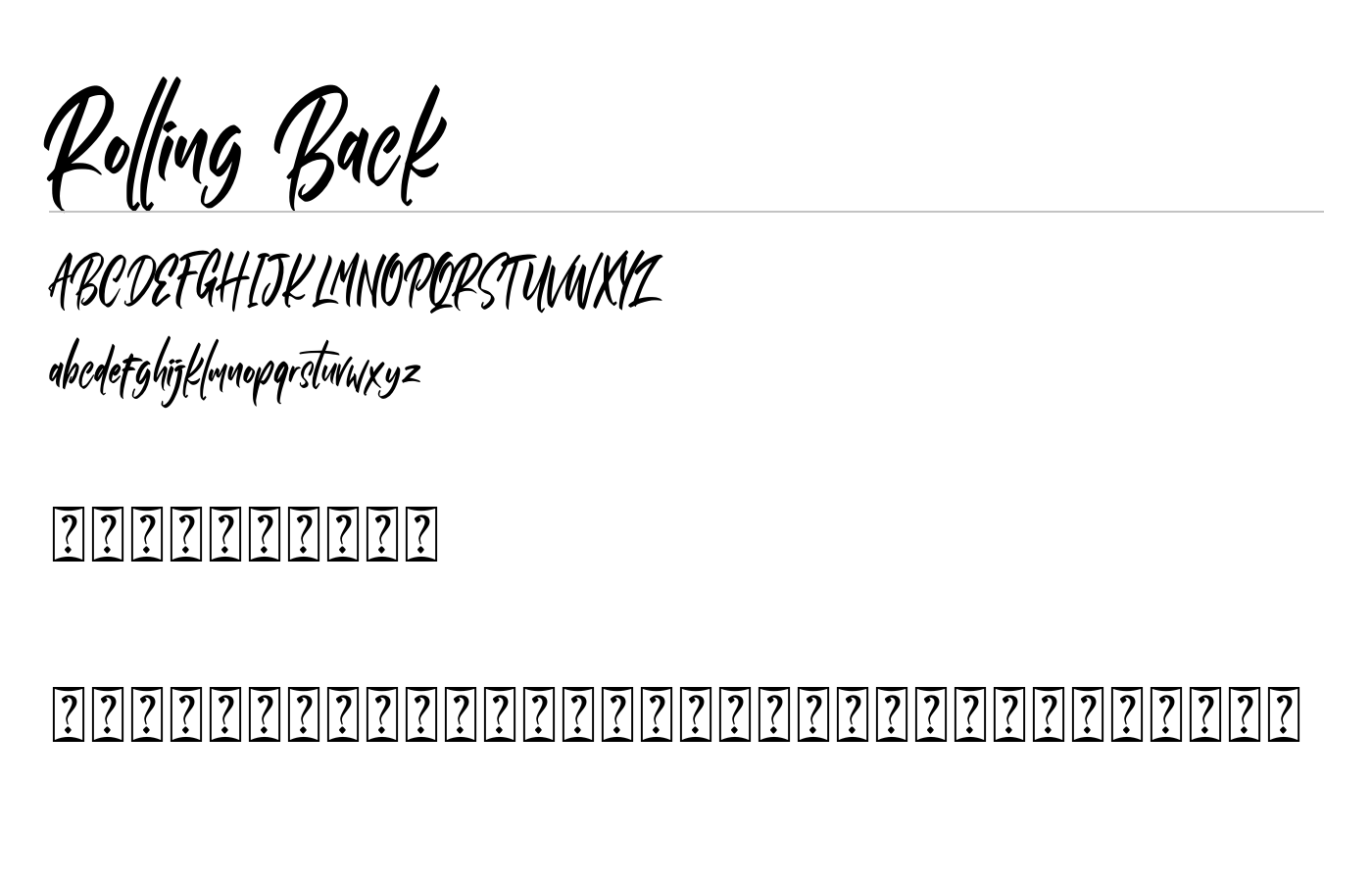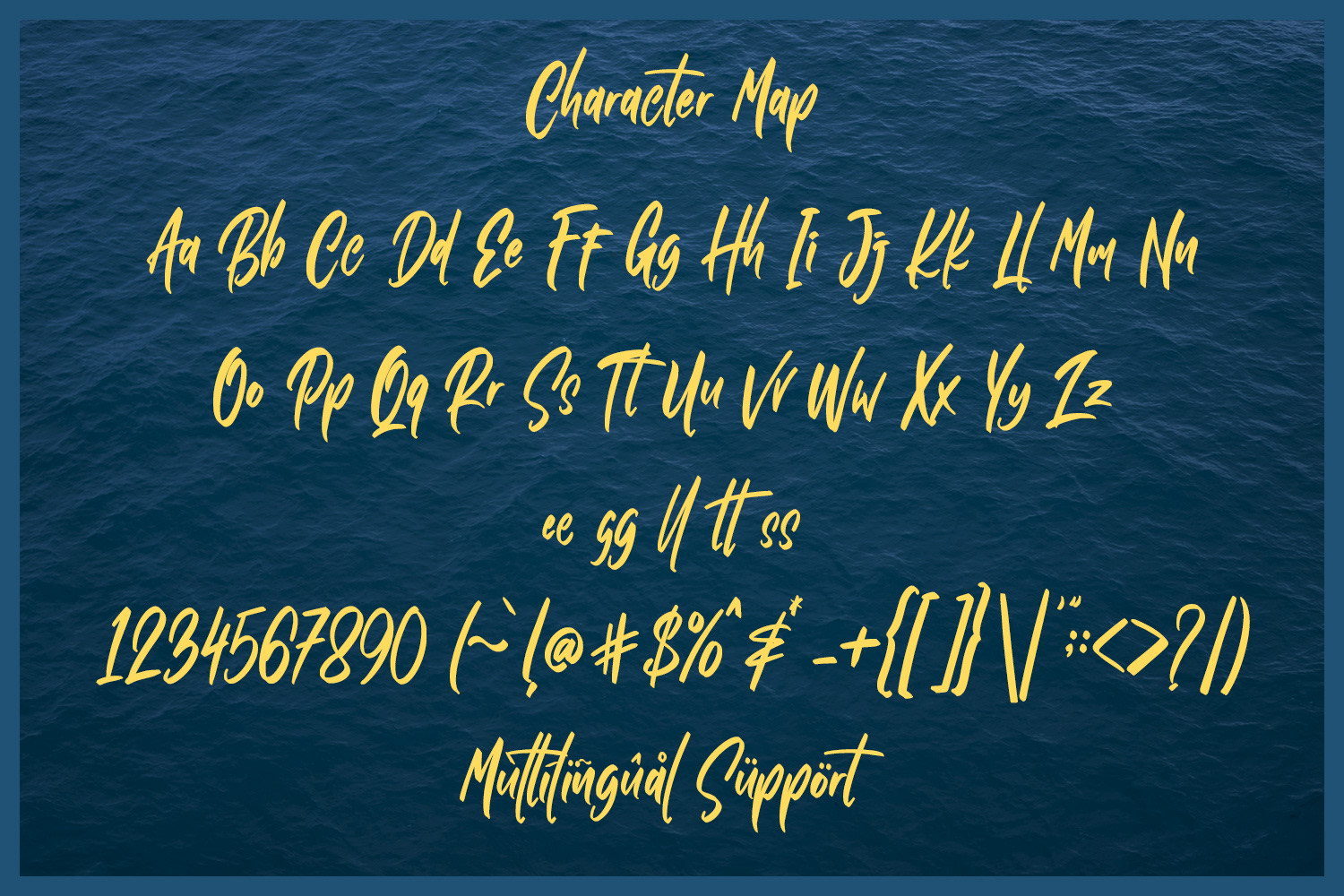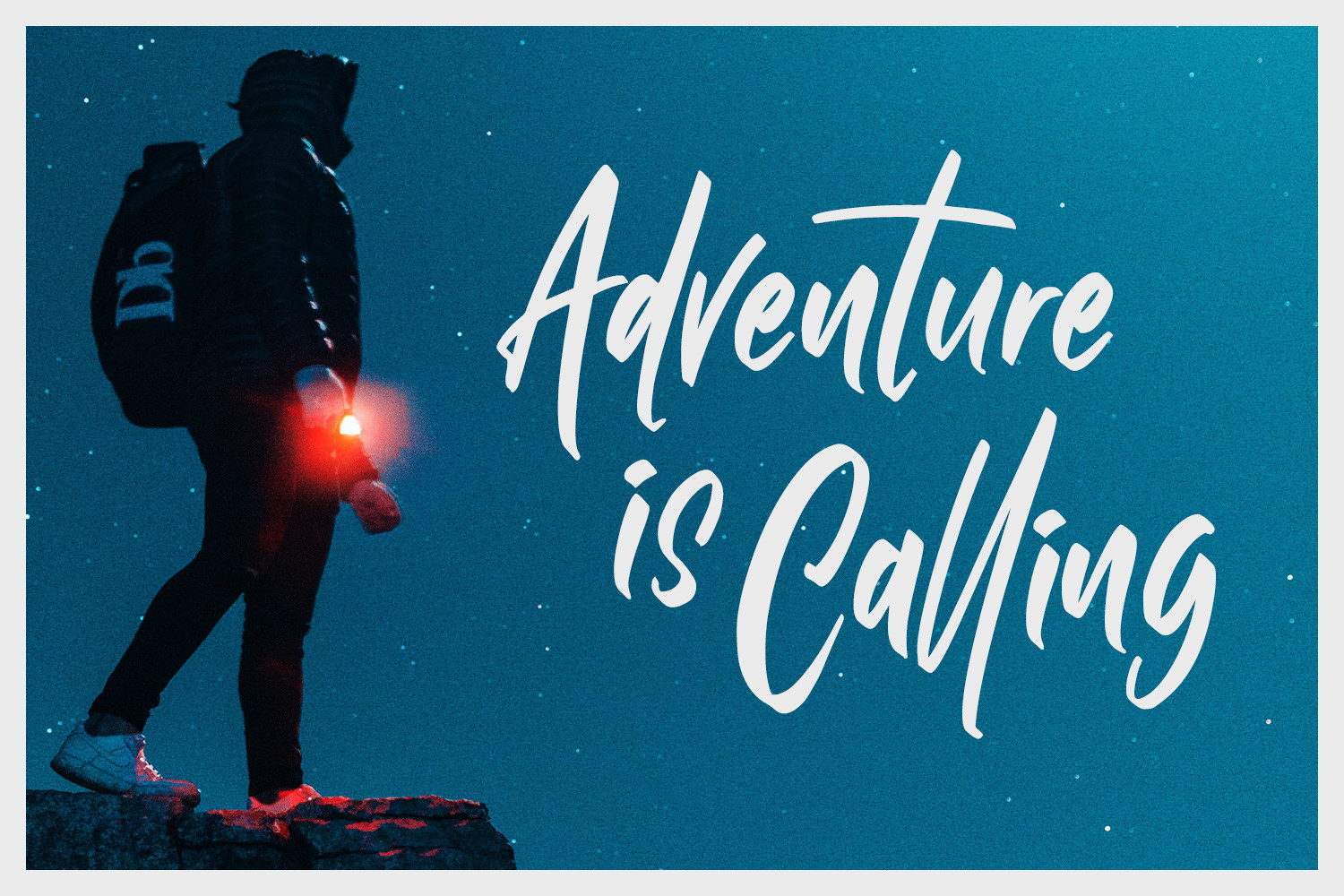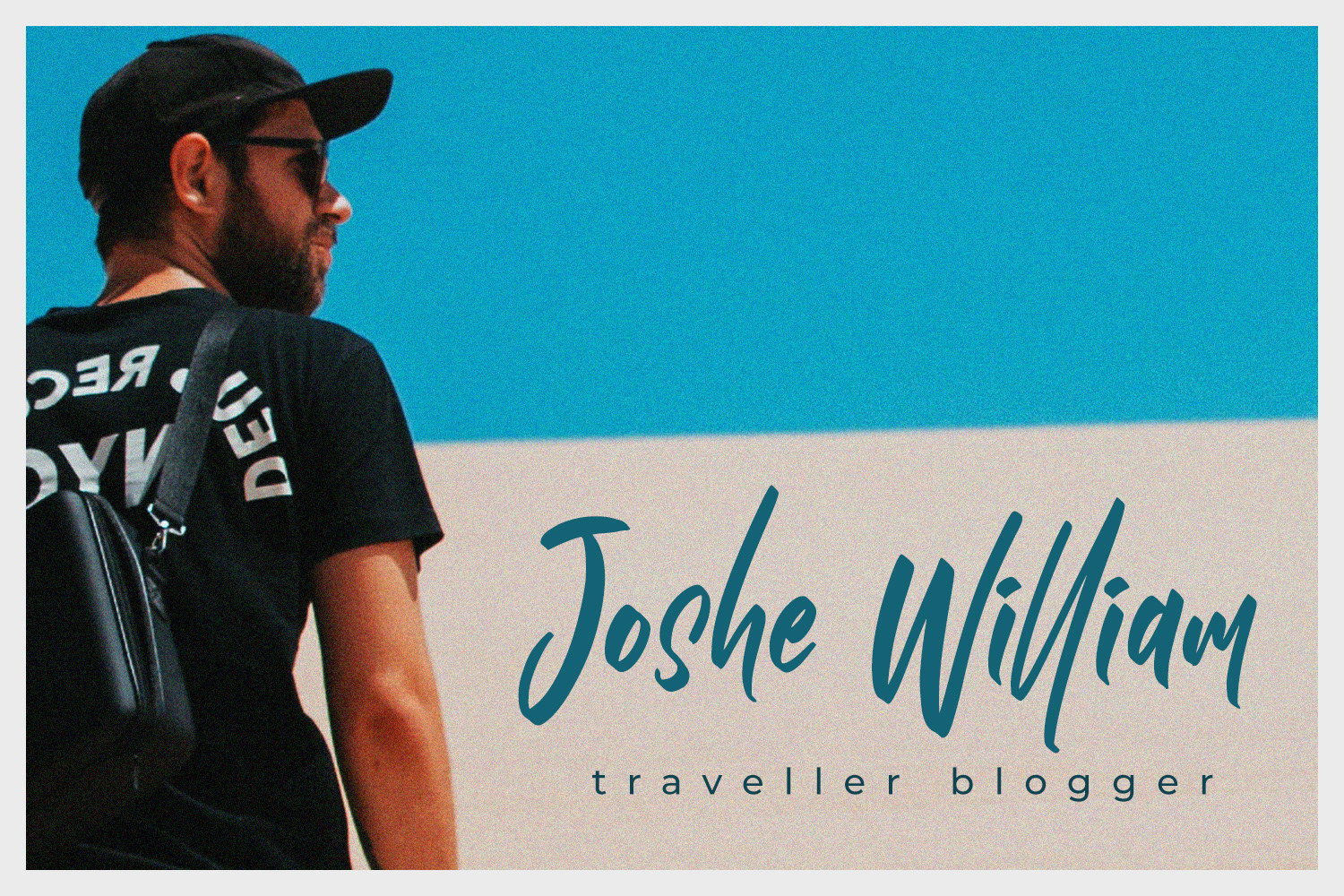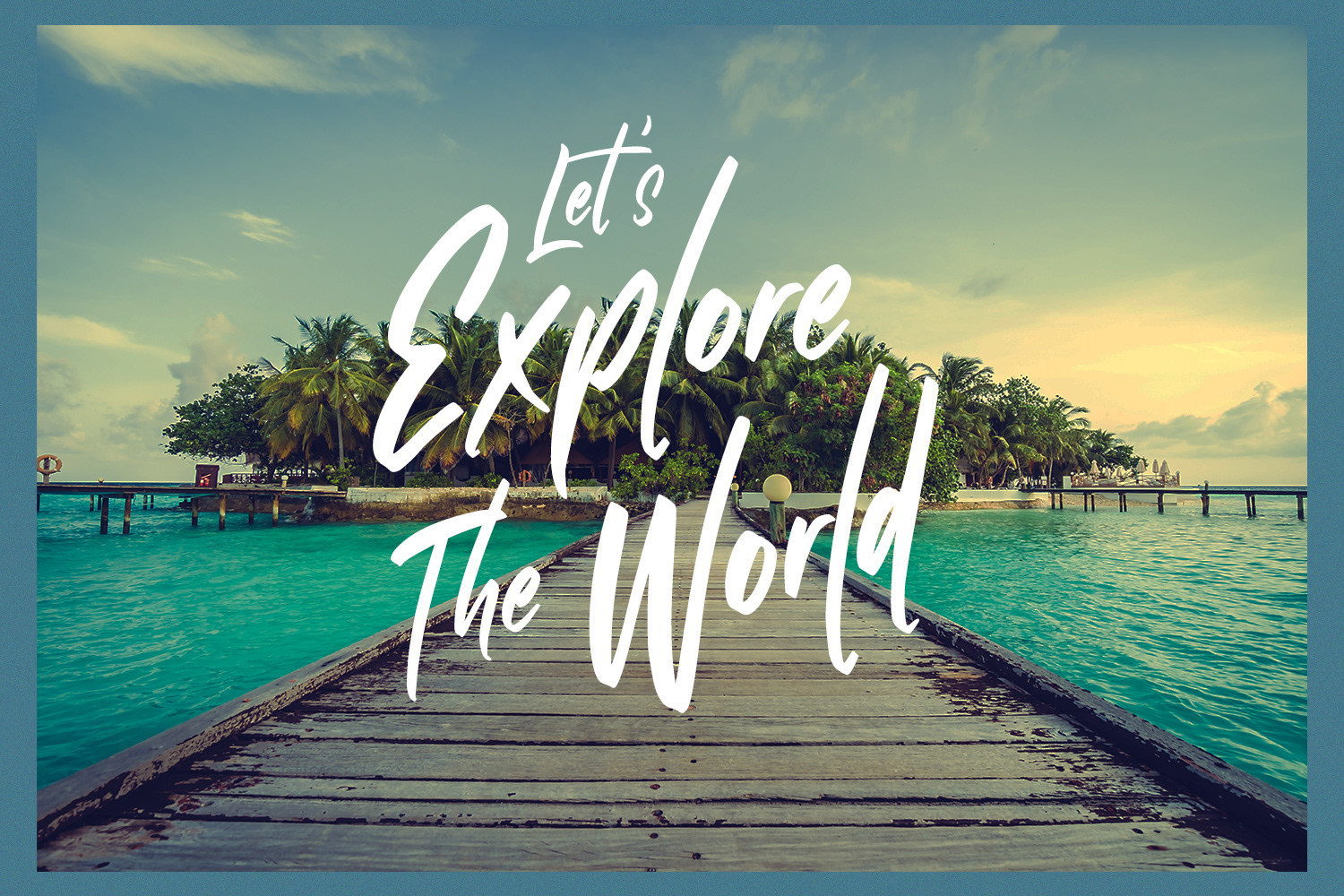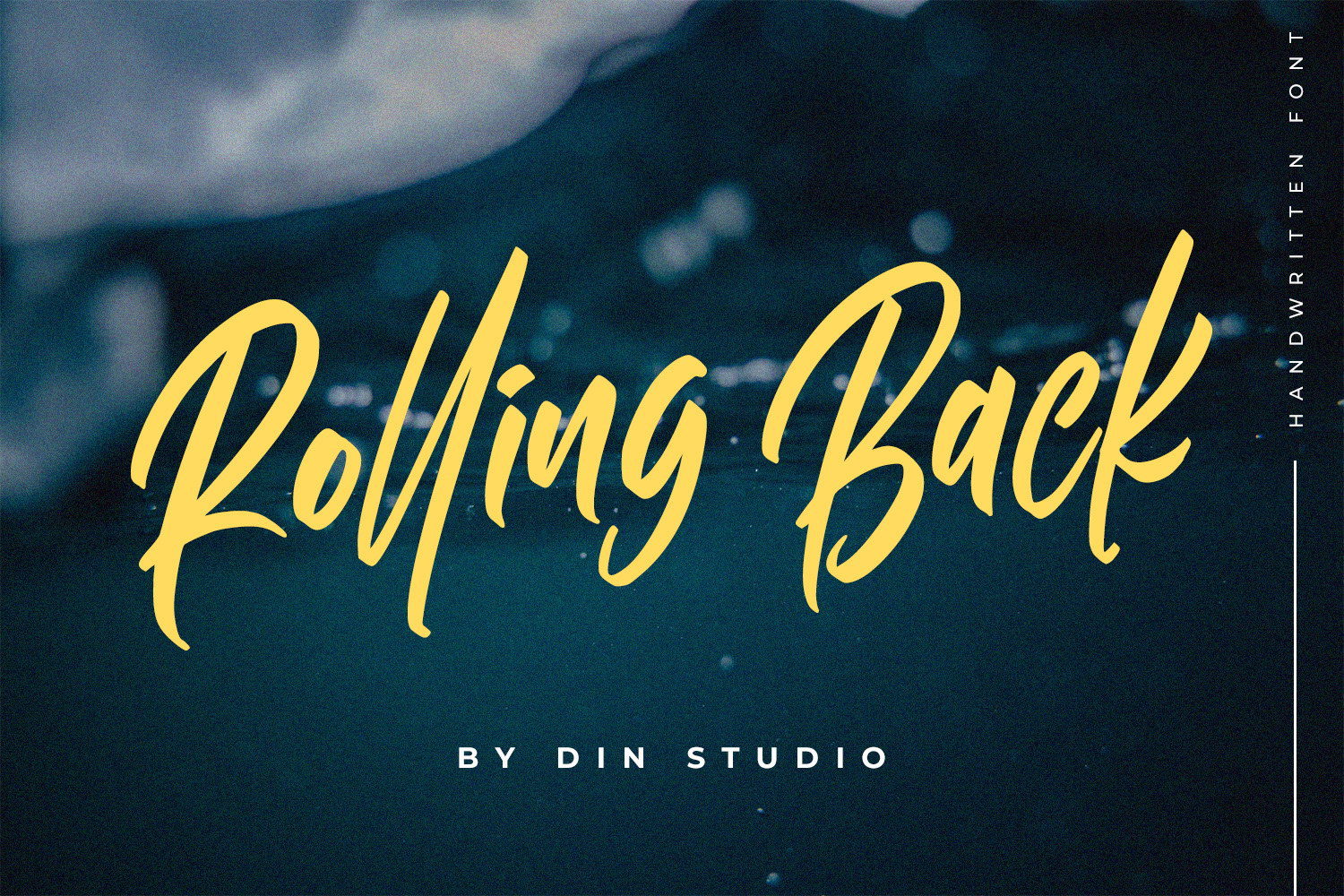
Rolling Back is a lively and energetic script font with bold, brush-like strokes that give it a casual yet confident personality. Its tall, condensed letterforms with high contrast in thickness create a dynamic and modern feel, making it ideal for eye-catching headlines, logos, and creative branding that seeks to convey spontaneity and style. This font works well in designs that want to express fun, movement, and a personal touch without sacrificing readability.
Rolling Back Font
About Rolling Back Font
| Font family | Rolling Back Font |